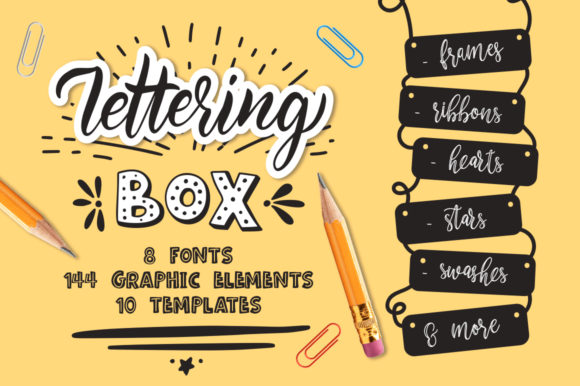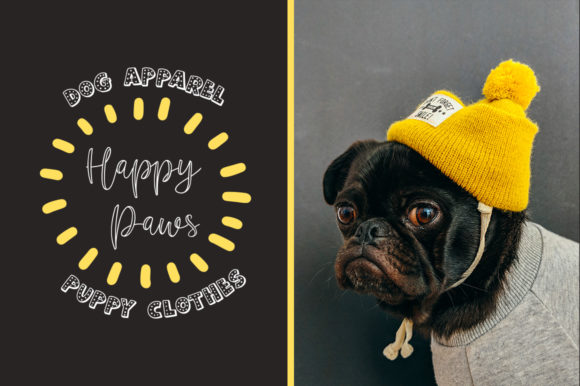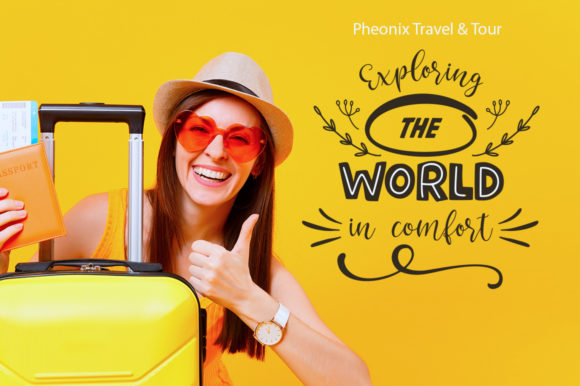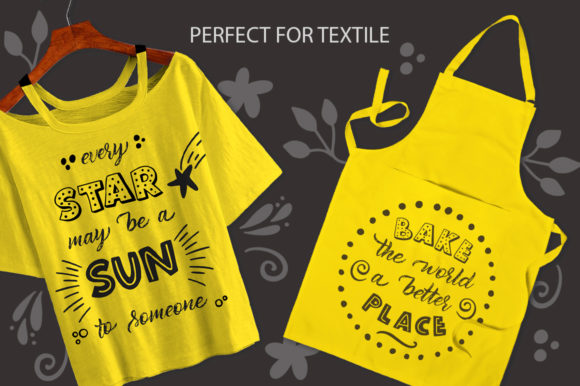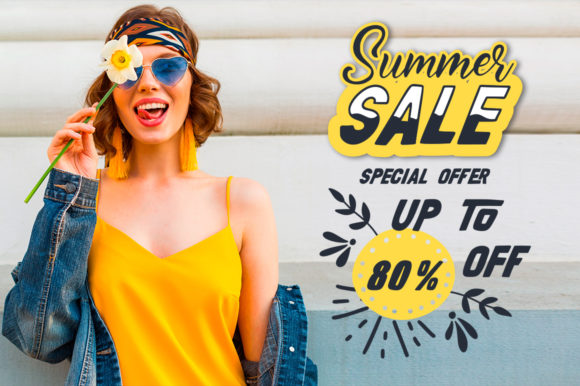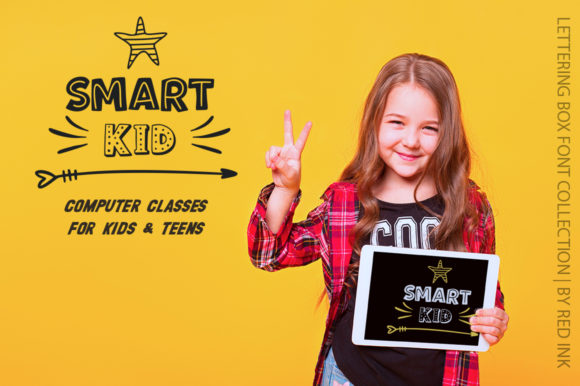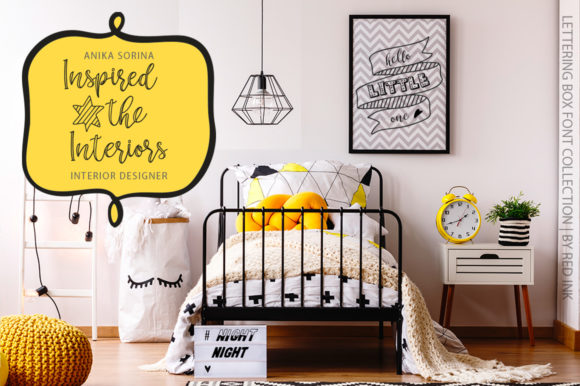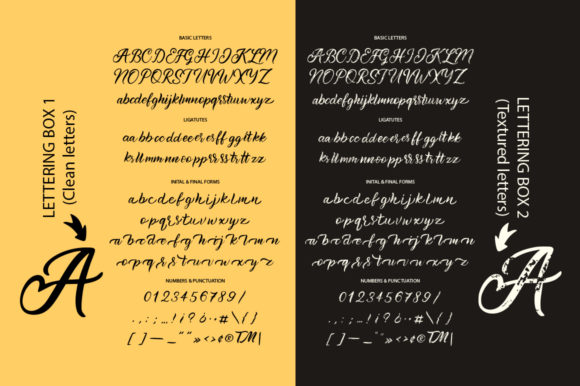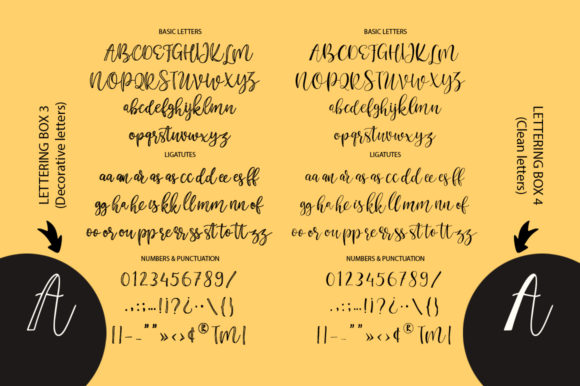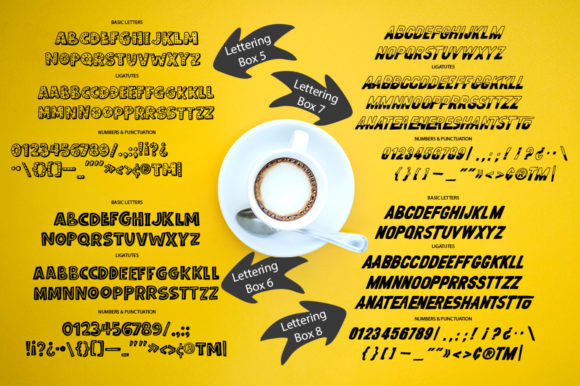
Lettering Box Font
Lettering Box is a fun, playful and bold font family that will effortlessly put an adorable twist on any design project. Get inspired by its unique charm and extensive set of extras!